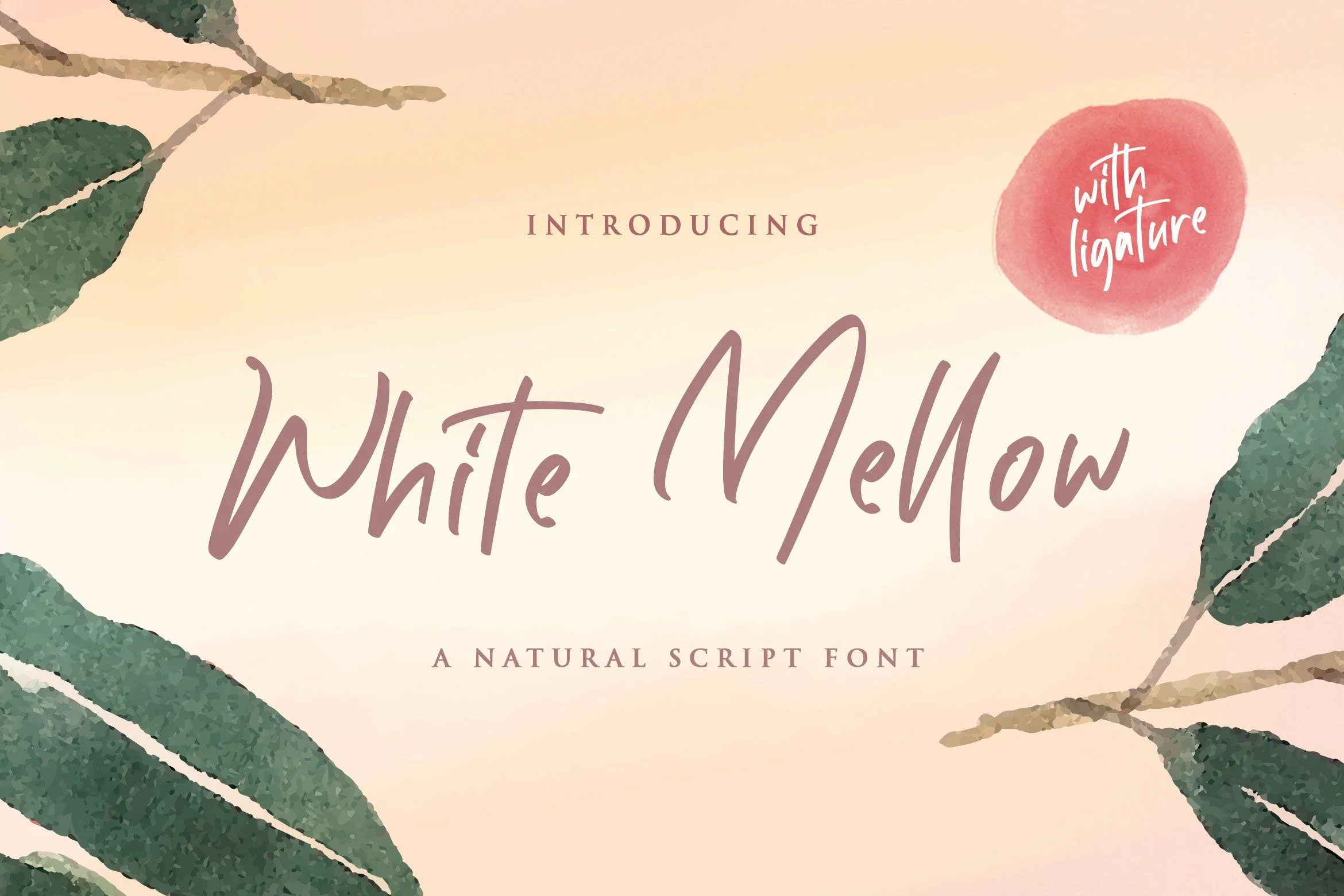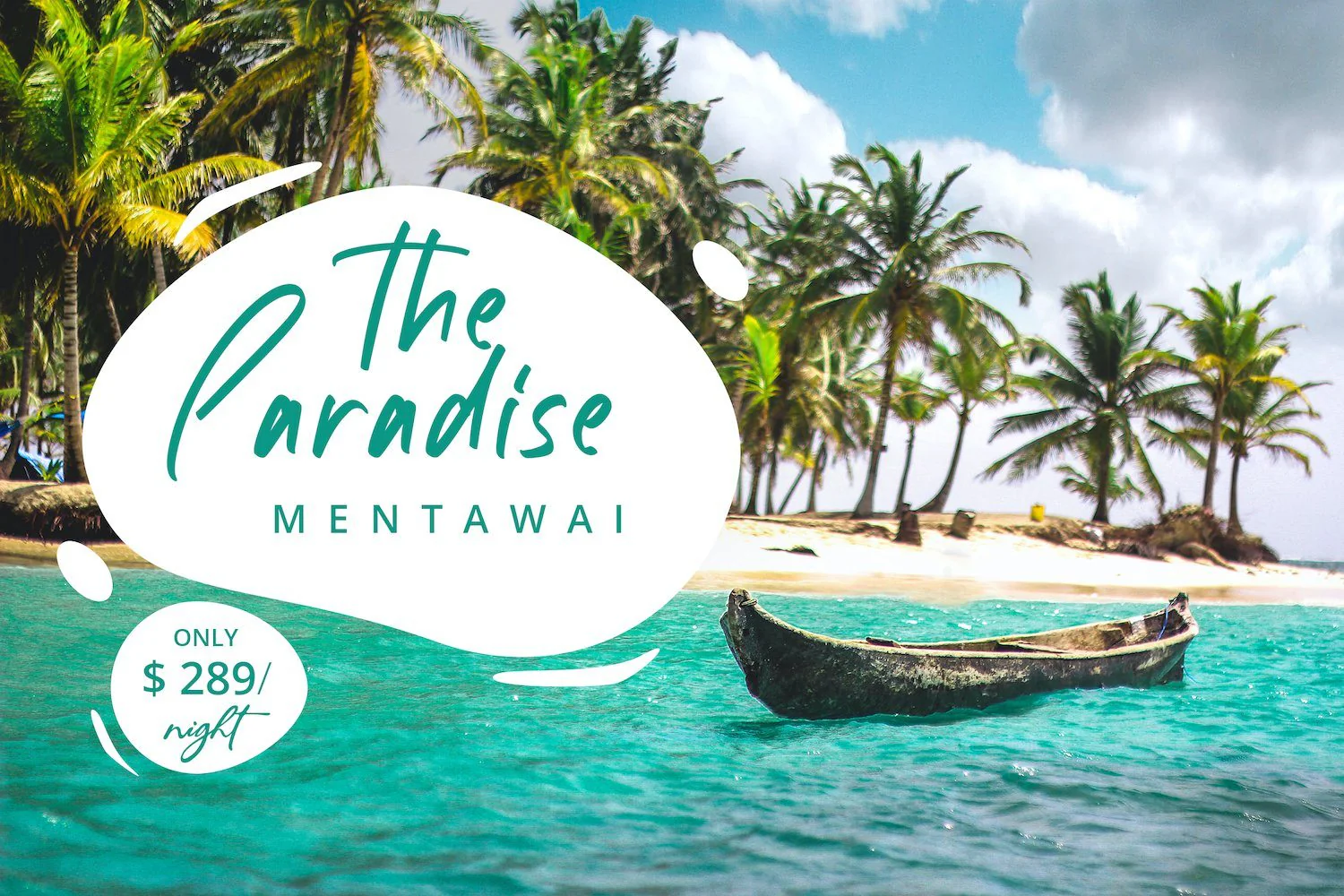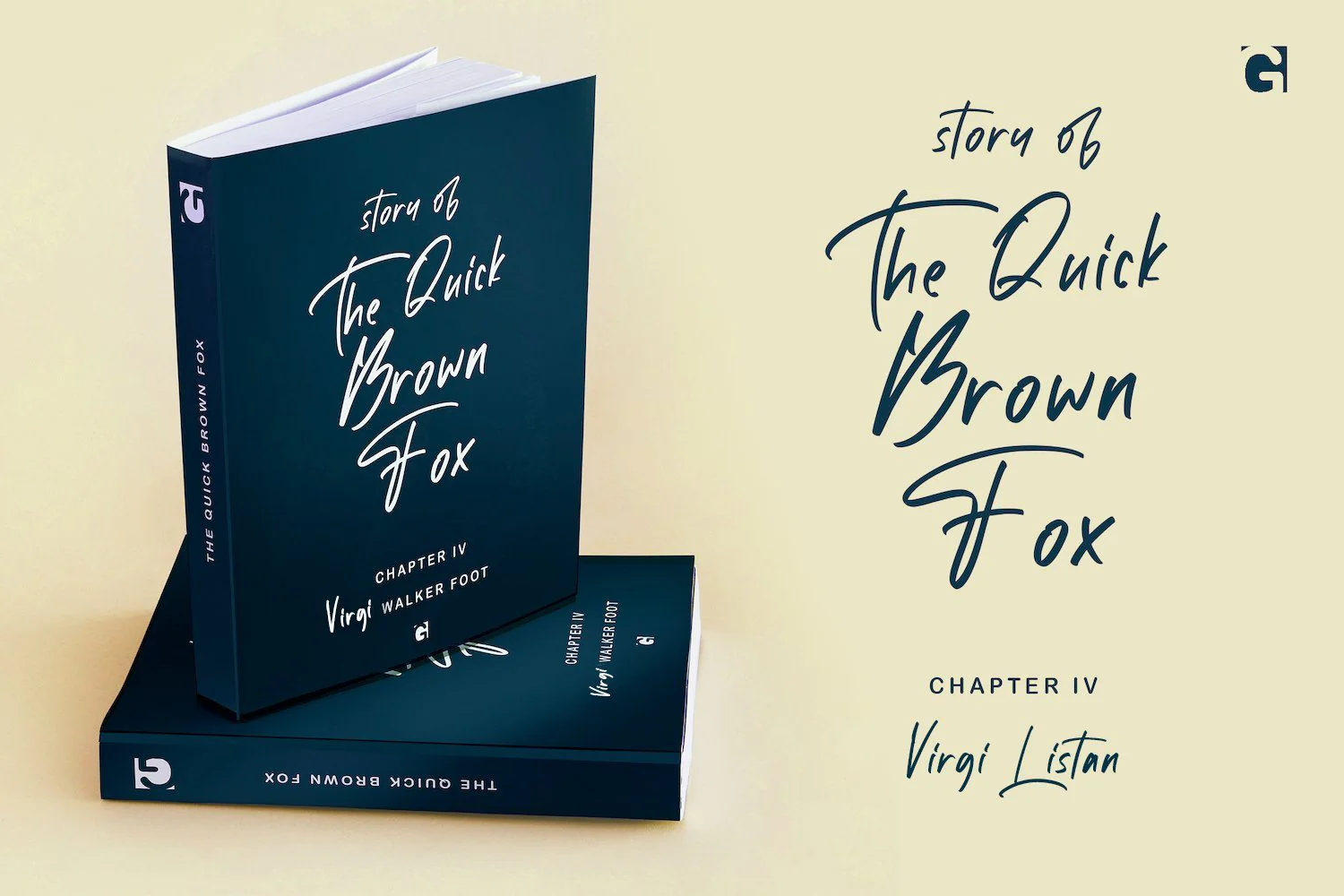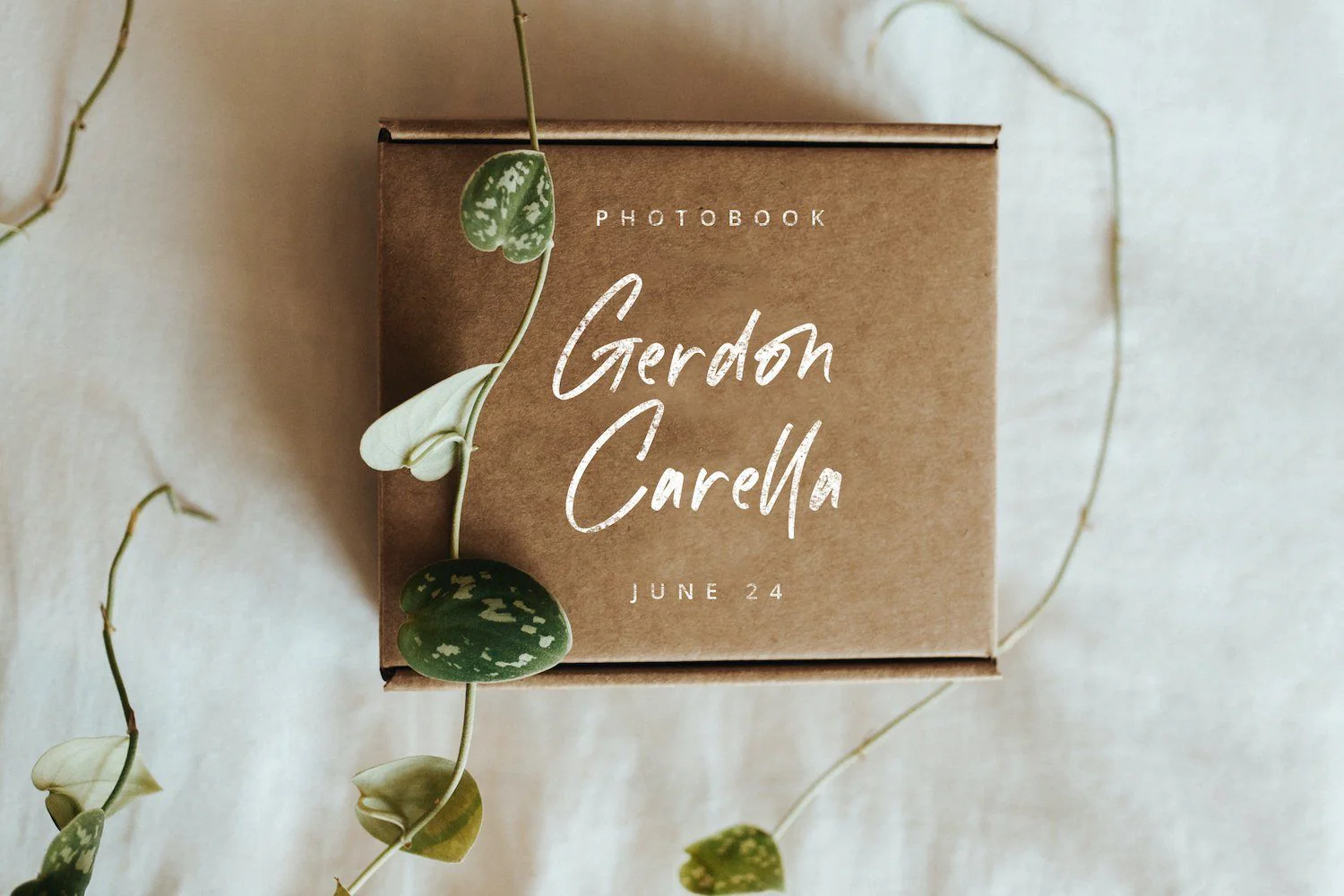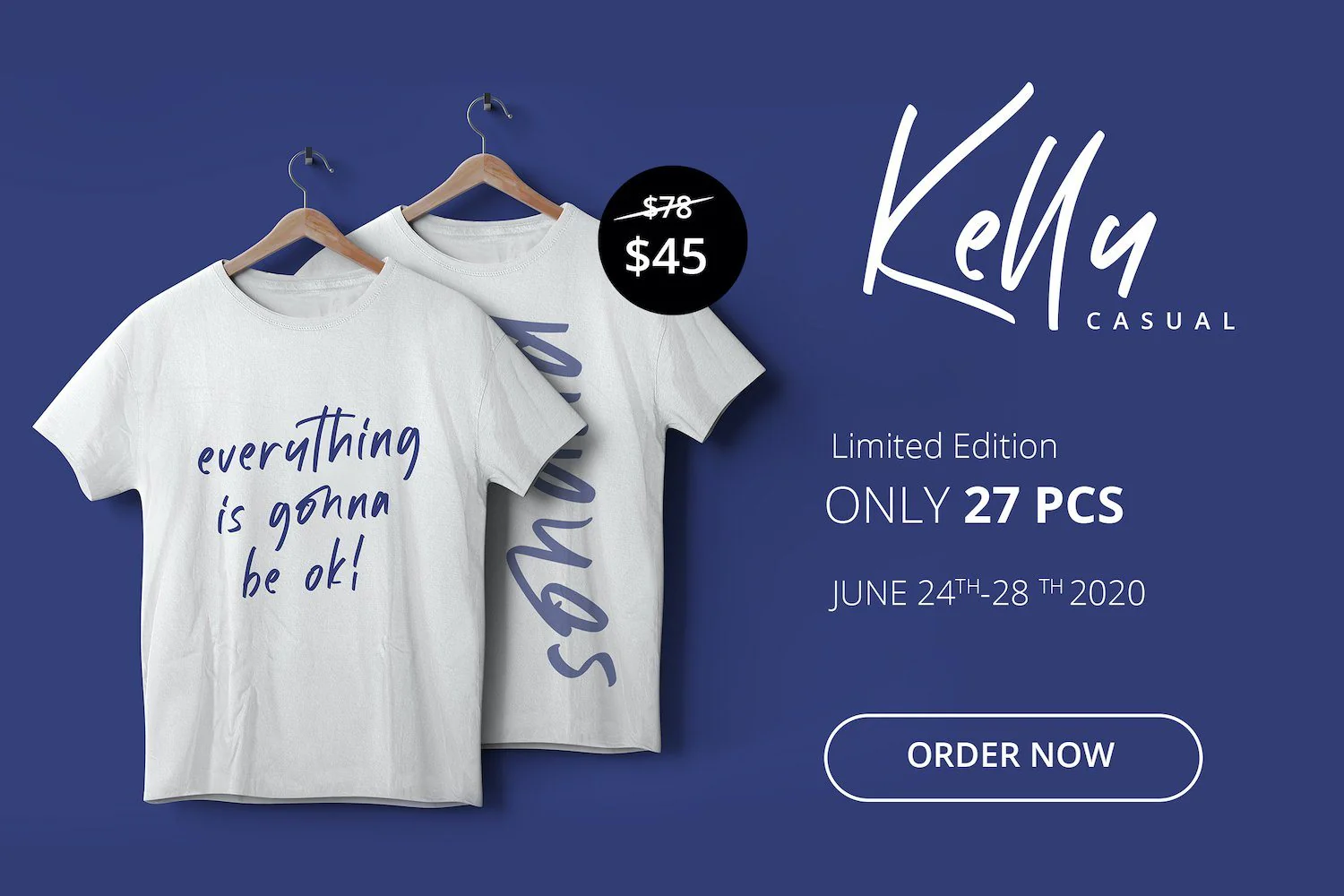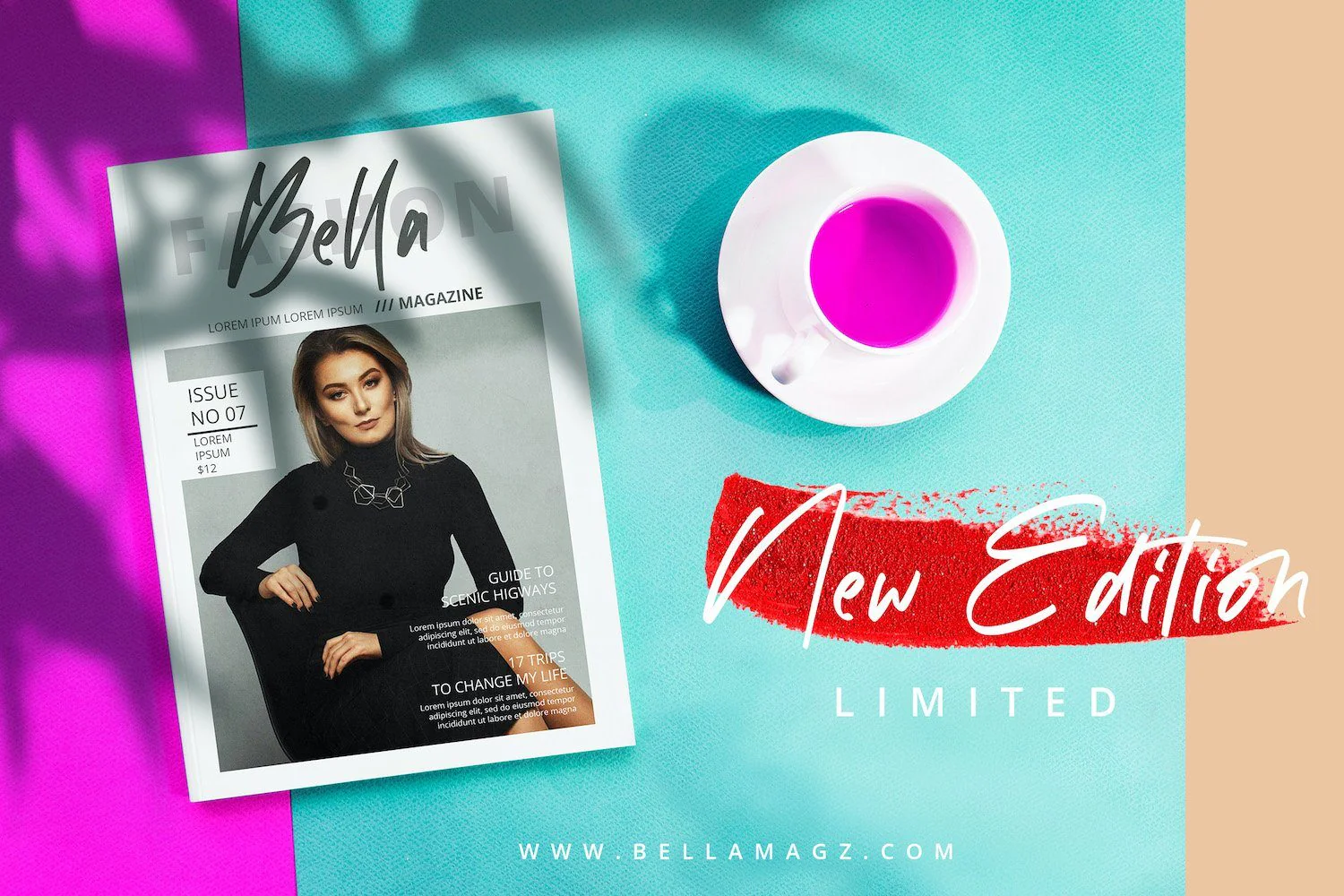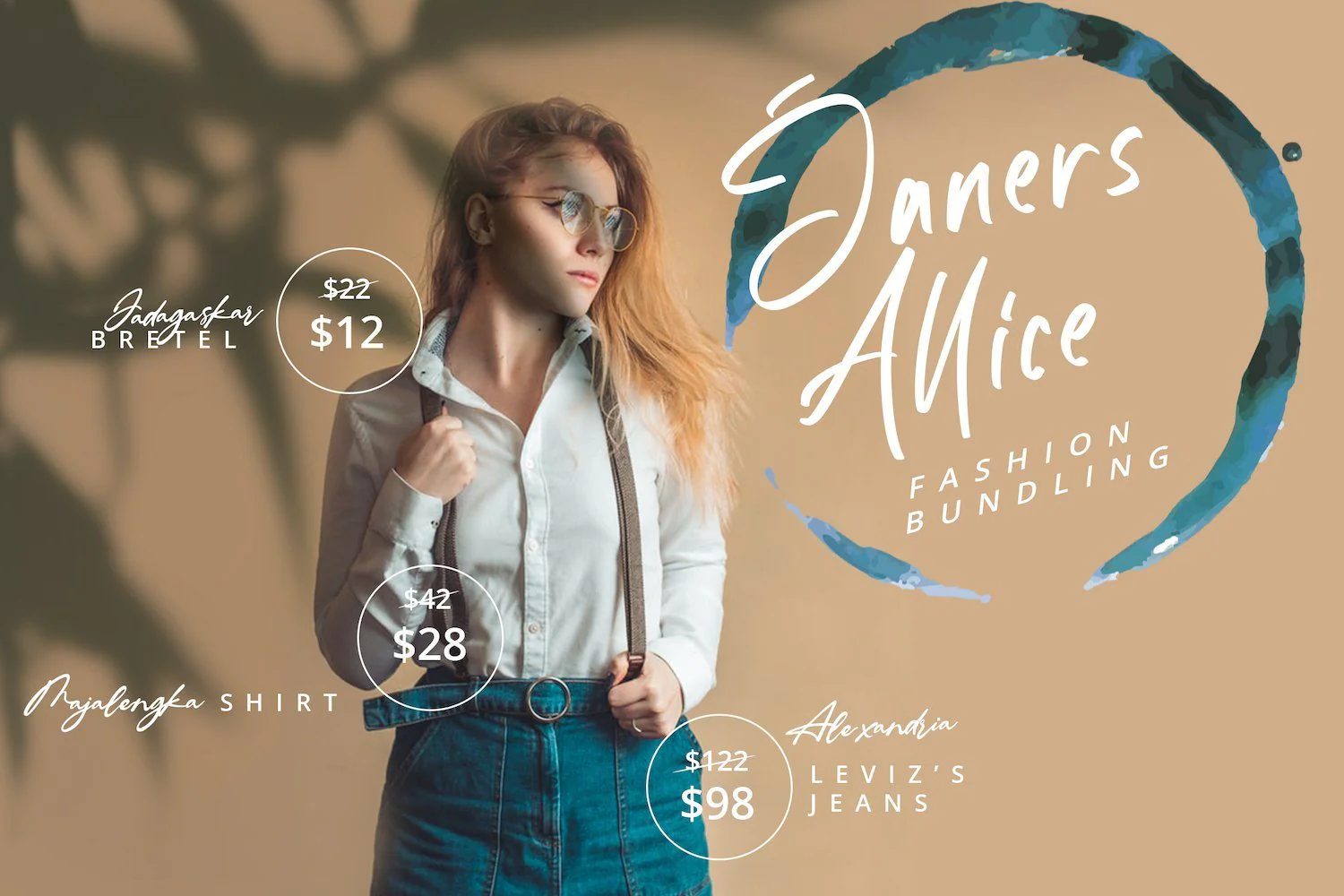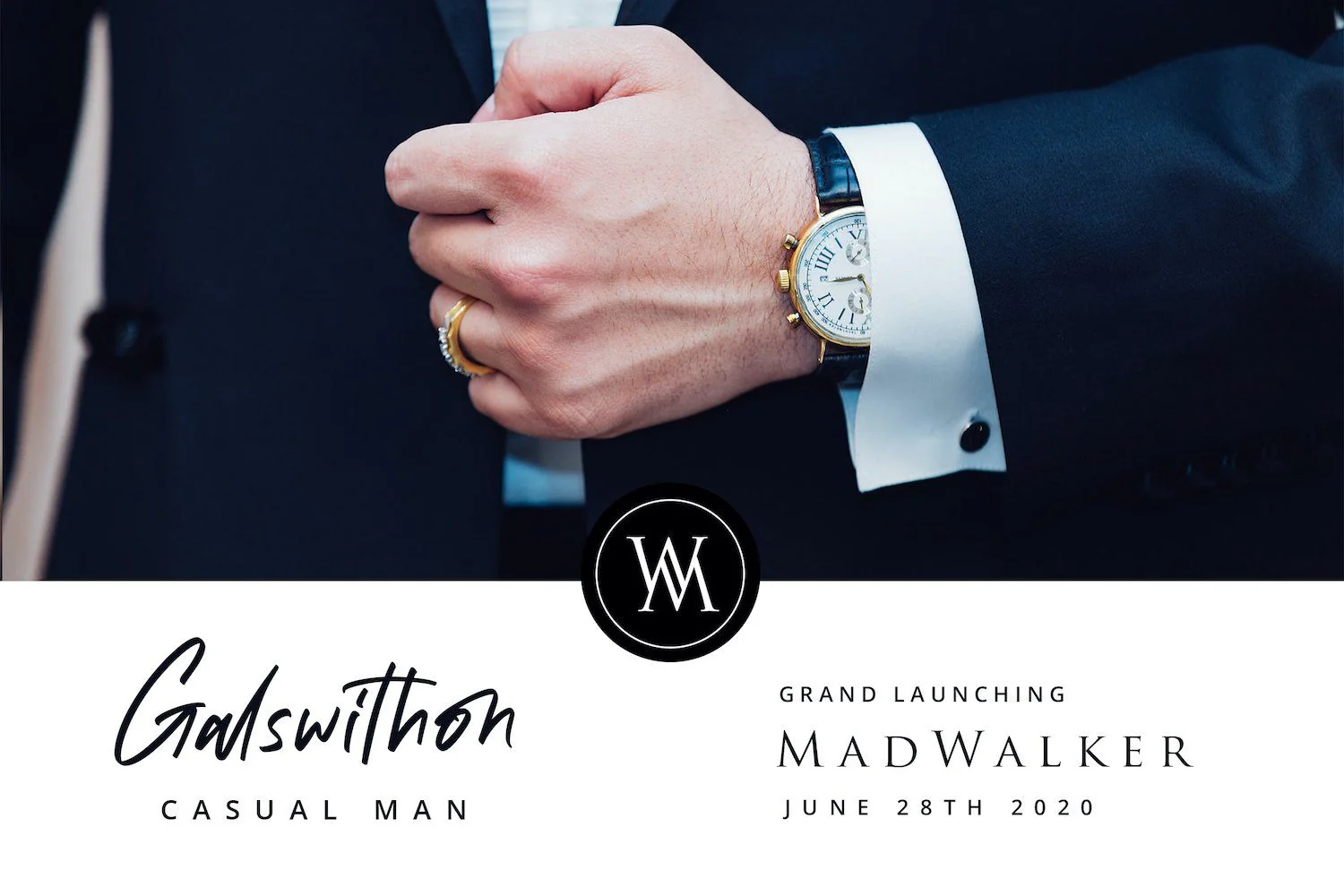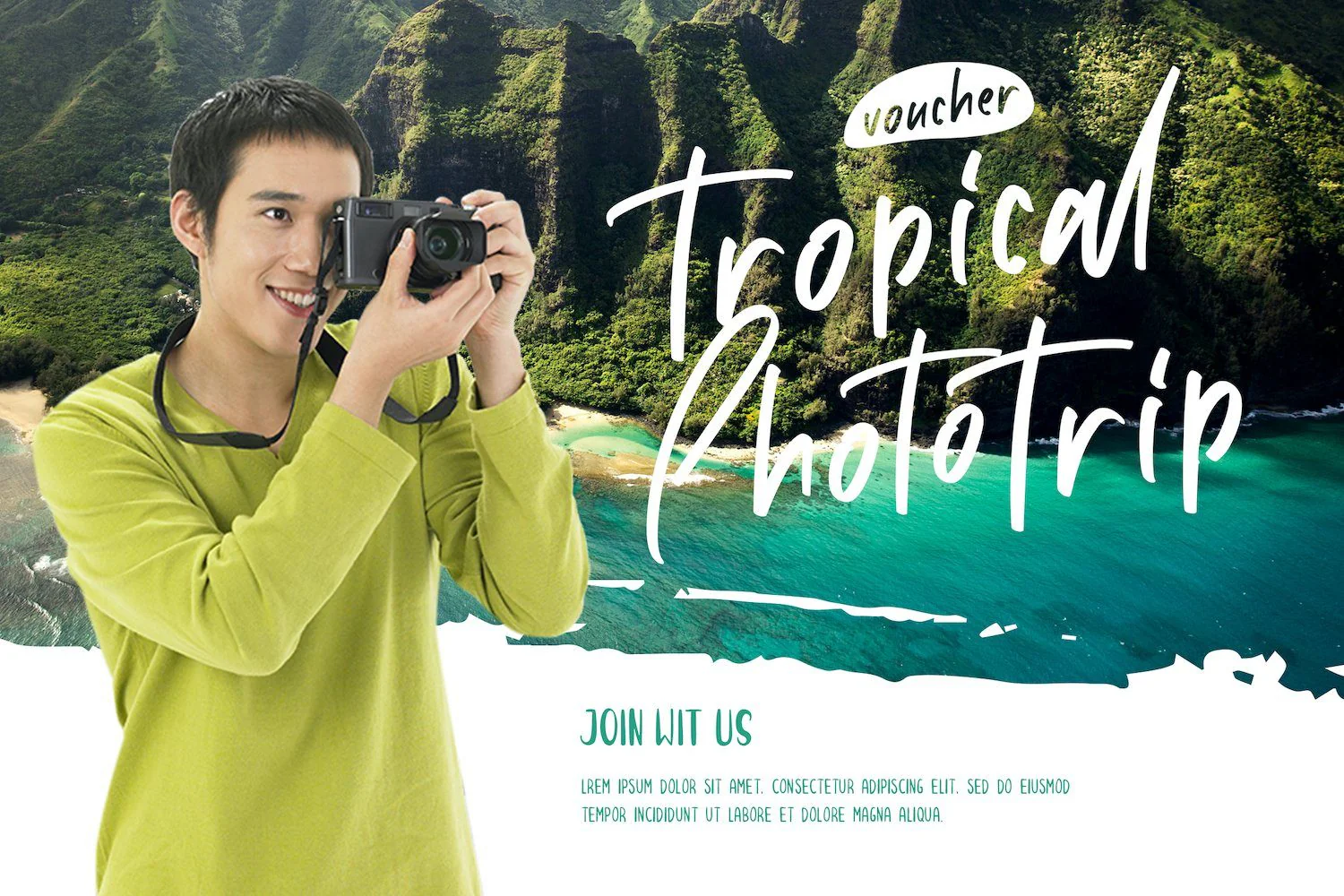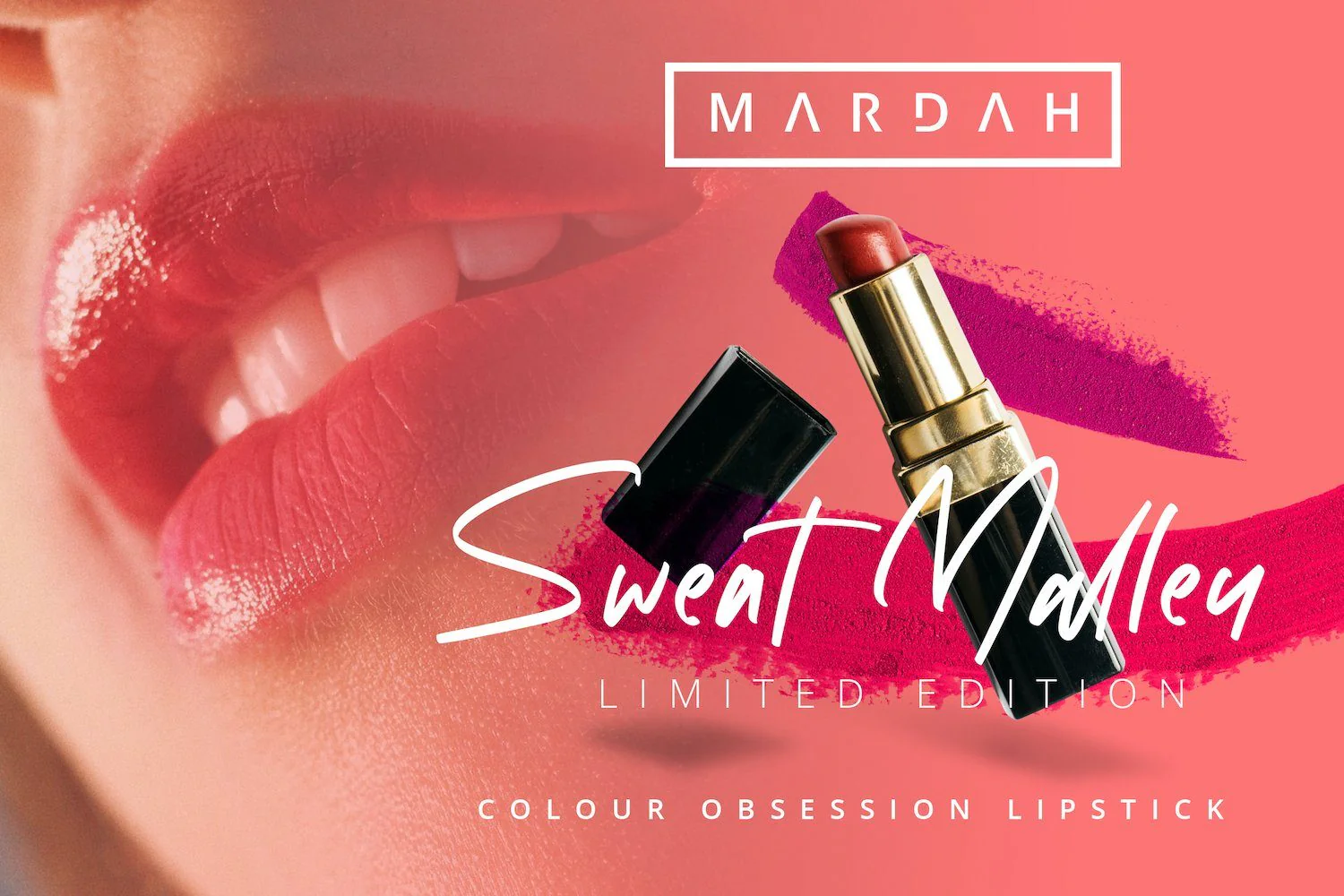
White Mellow - Handwritten Script Font
Introducing White Mellow - Handwritten Script Font
White Mellow is a Modern Script Font with Handwritten Style. The White Mellow font was created with authentic handwritting pen. This font is perfect for fashion brand, wedding invitation, business card, logo brand, signature, and then calligraphy.
This Font Template contains Classy, Elegant, Creative, Cool and has a Unique Concept.
Introducing White Mellow - Handwritten Script Font
White Mellow is a Modern Script Font with Handwritten Style. The White Mellow font was created with authentic handwritting pen. This font is perfect for fashion brand, wedding invitation, business card, logo brand, signature, and then calligraphy.
This Font Template contains Classy, Elegant, Creative, Cool and has a Unique Concept.